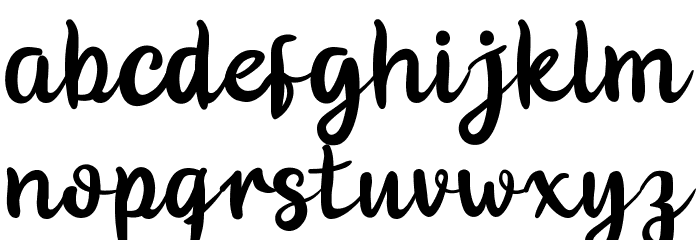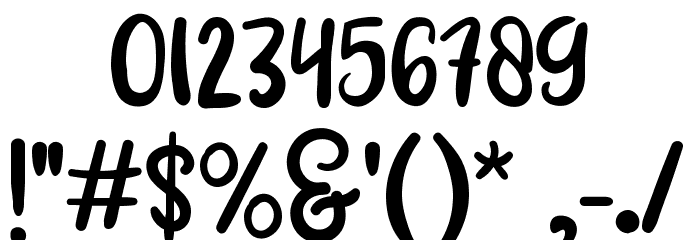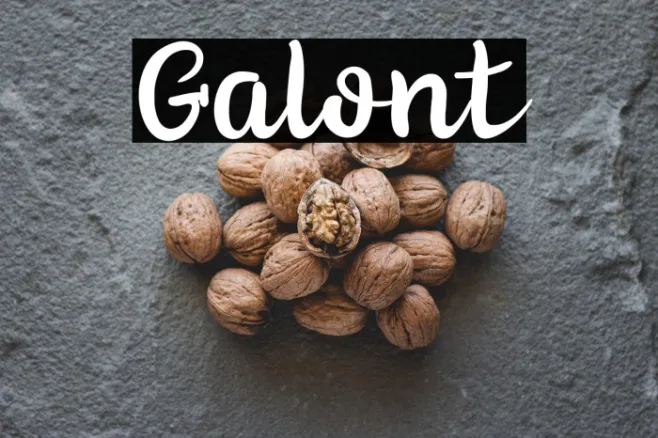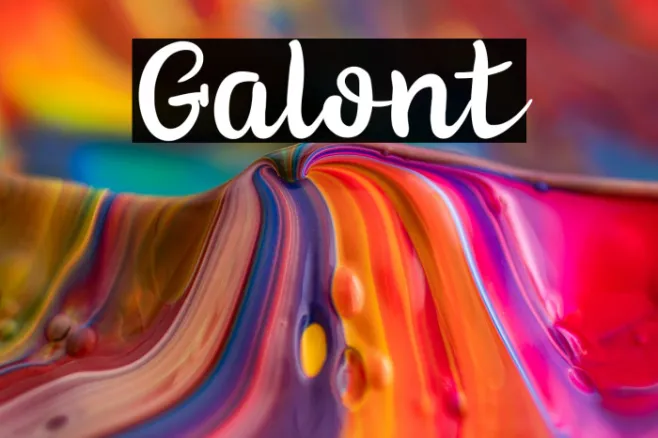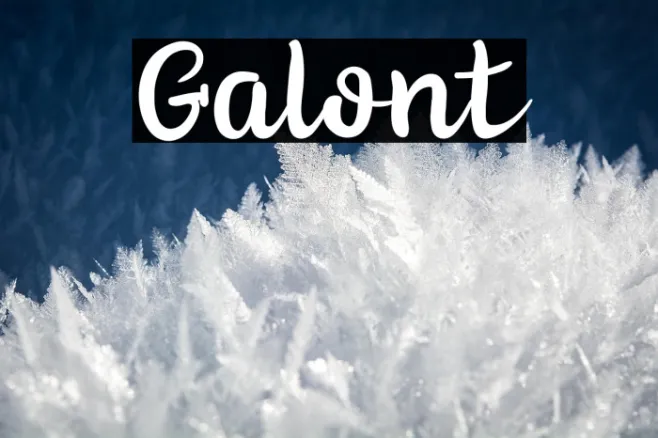
Galont Font
This font features a playful and energetic script style with a handwritten feel. The characters are bold and rounded, giving a sense of warmth and friendliness. The uppercase letters maintain a consistent height, while the lowercase letters exhibit a charming irregularity, enhancing the casual aesthetic. The numerals are clear and legible, matching the overall style of the alphabet. Special characters are creatively designed, adding to the font's versatility. This font is ideal for projects that require a personal touch, such as invitations, greeting cards, or branding that aims to convey a sense of approachability and creativity.
A playful, handwritten script font with bold, rounded characters.
- Proposed Projects: Ideal for invitations, greeting cards, playful branding, and creative projects.
- Category: Handwritten
- Overall Style: Playful, Casual
- Use Case: Logos, Invitations, Greeting Cards